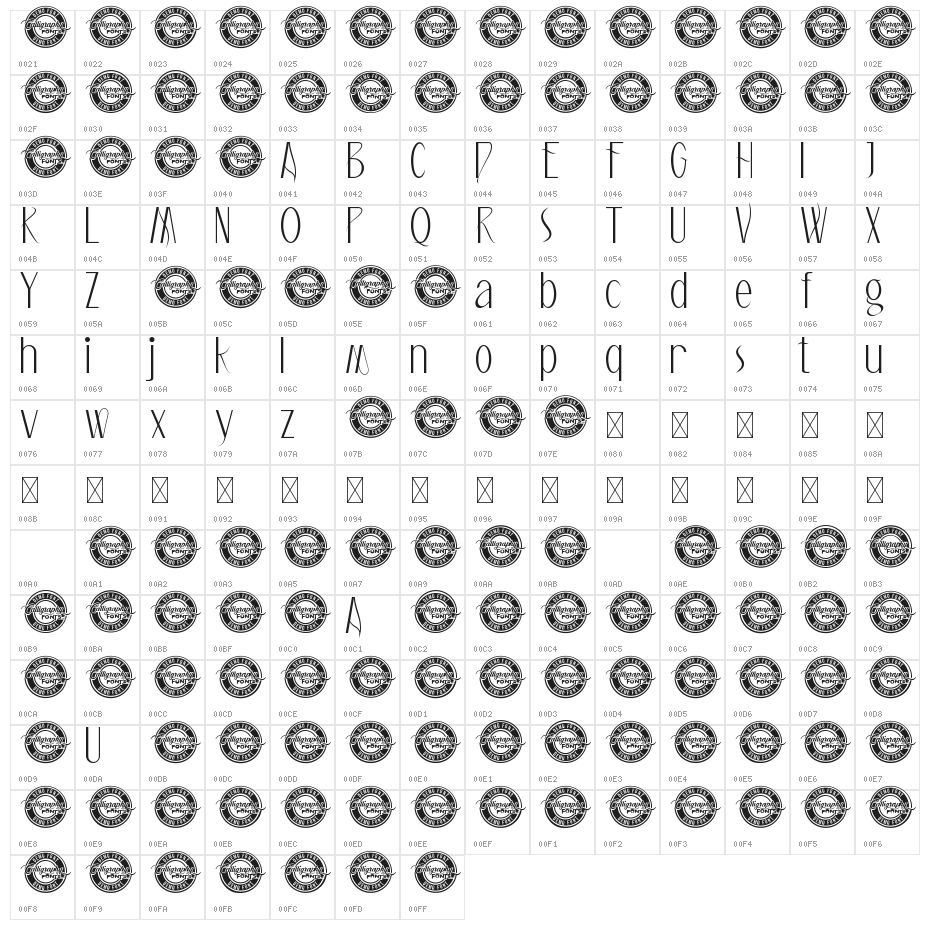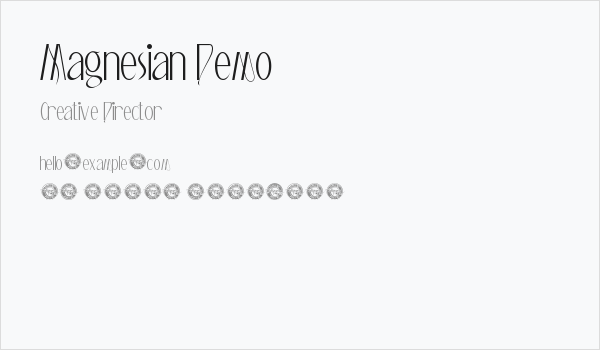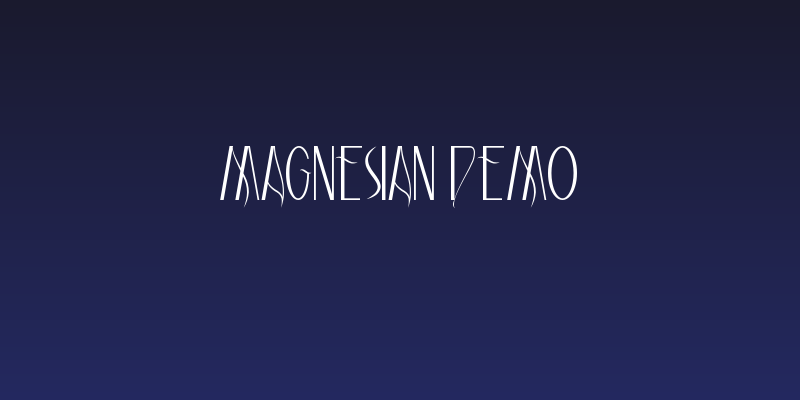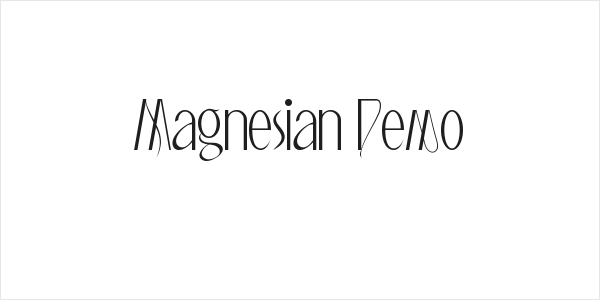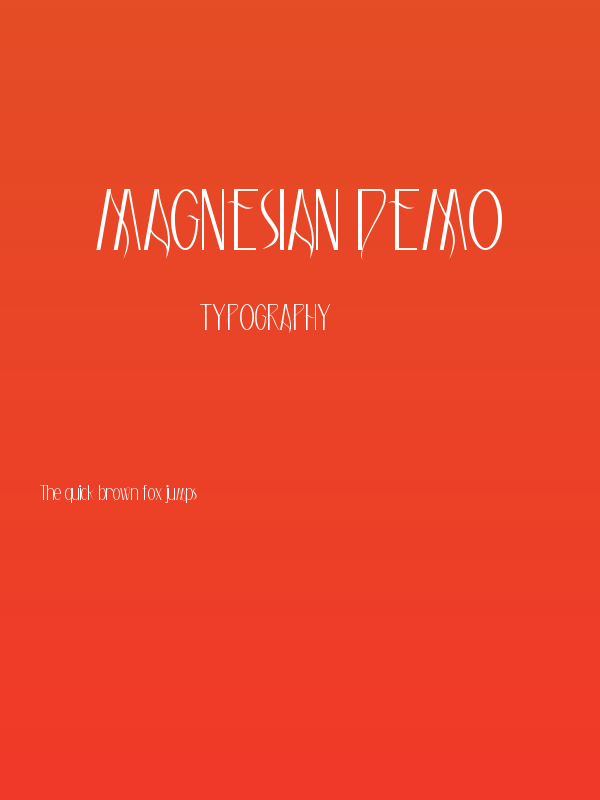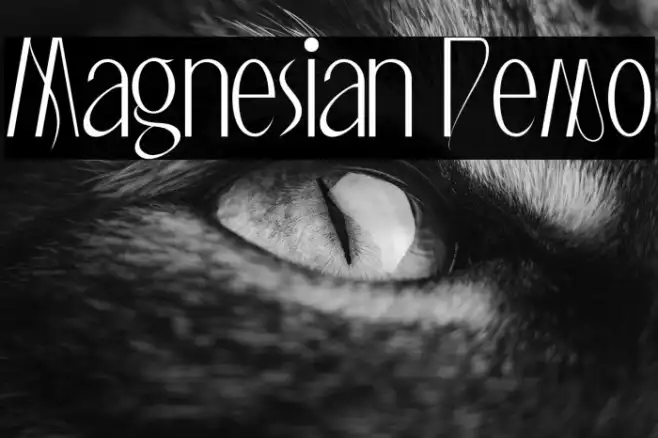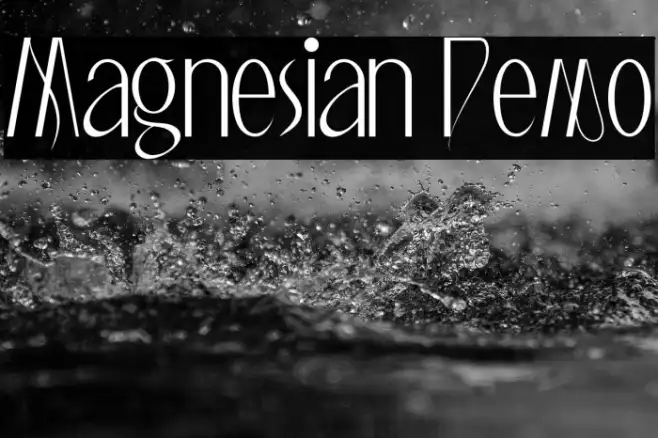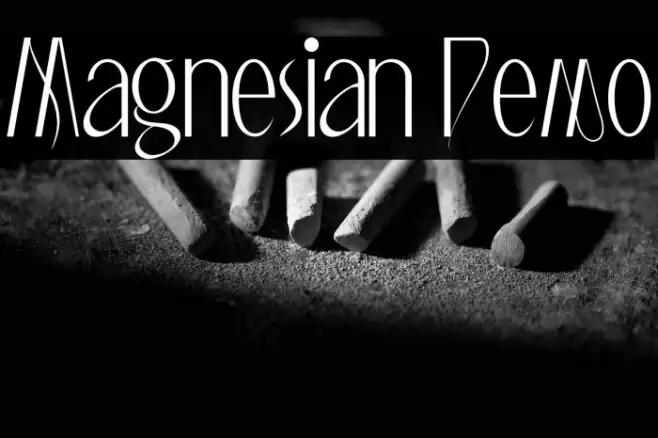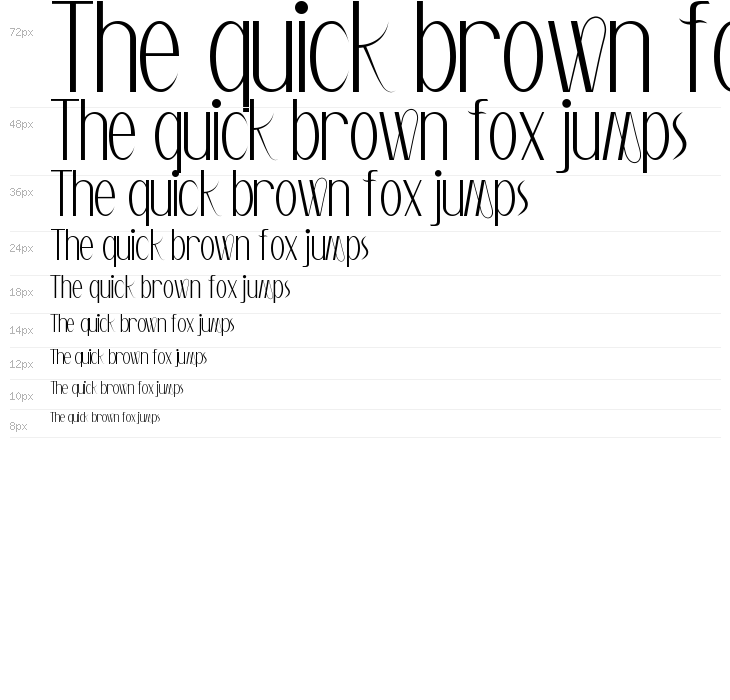
Magnesian Demo Font
Magnesian Demo Description
This font features a unique blend of modern and artistic elements, characterized by its tall, narrow letterforms and elegant curves. The uppercase letters exhibit a distinct flair with elongated strokes and subtle serifs, creating a sophisticated appearance. The lowercase letters maintain a consistent style, with smooth, flowing lines that enhance readability. The numerals are designed with the same attention to detail, ensuring they complement the overall aesthetic. Special characters are thoughtfully crafted, adding a touch of creativity to the font. This typeface is perfect for projects that require a stylish and contemporary look.
| Overall Style | Modern, Artistic |
| Proposed Projects | Ideal for fashion branding, editorial design, luxury packaging, and artistic posters. |